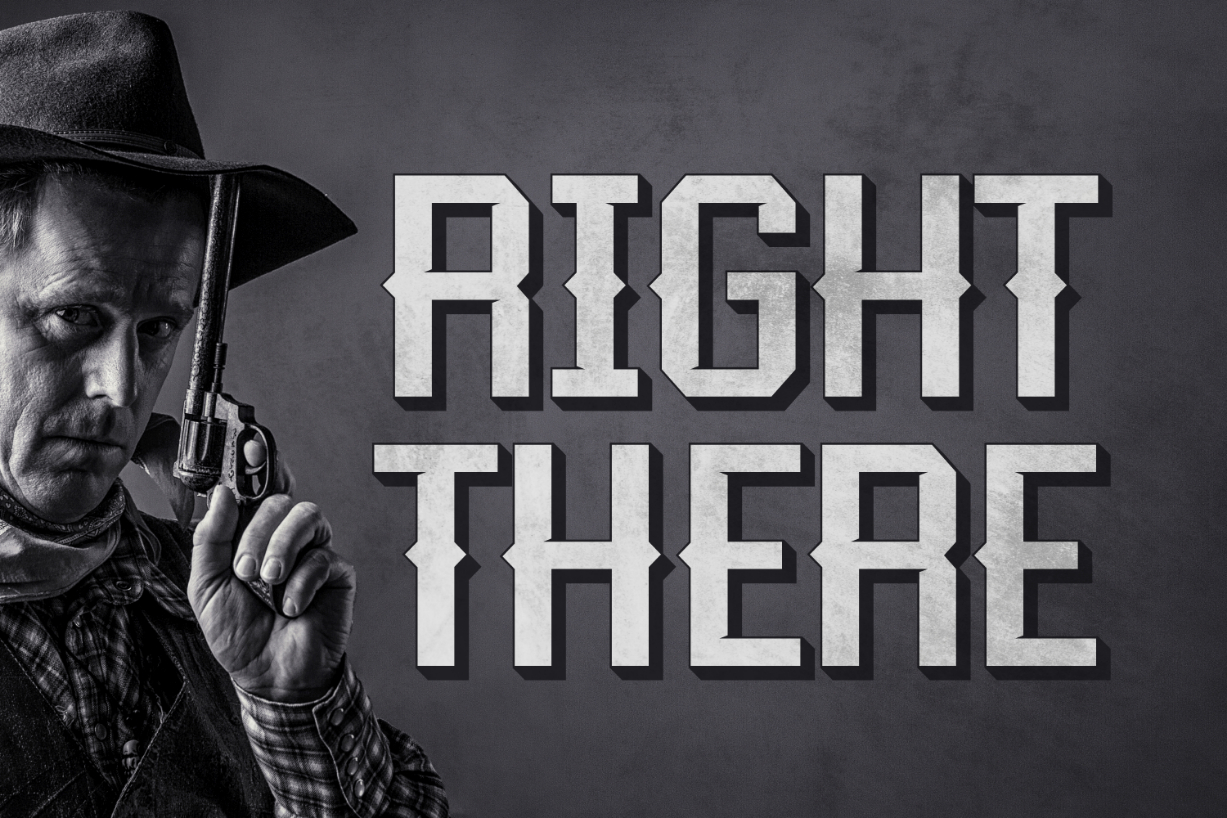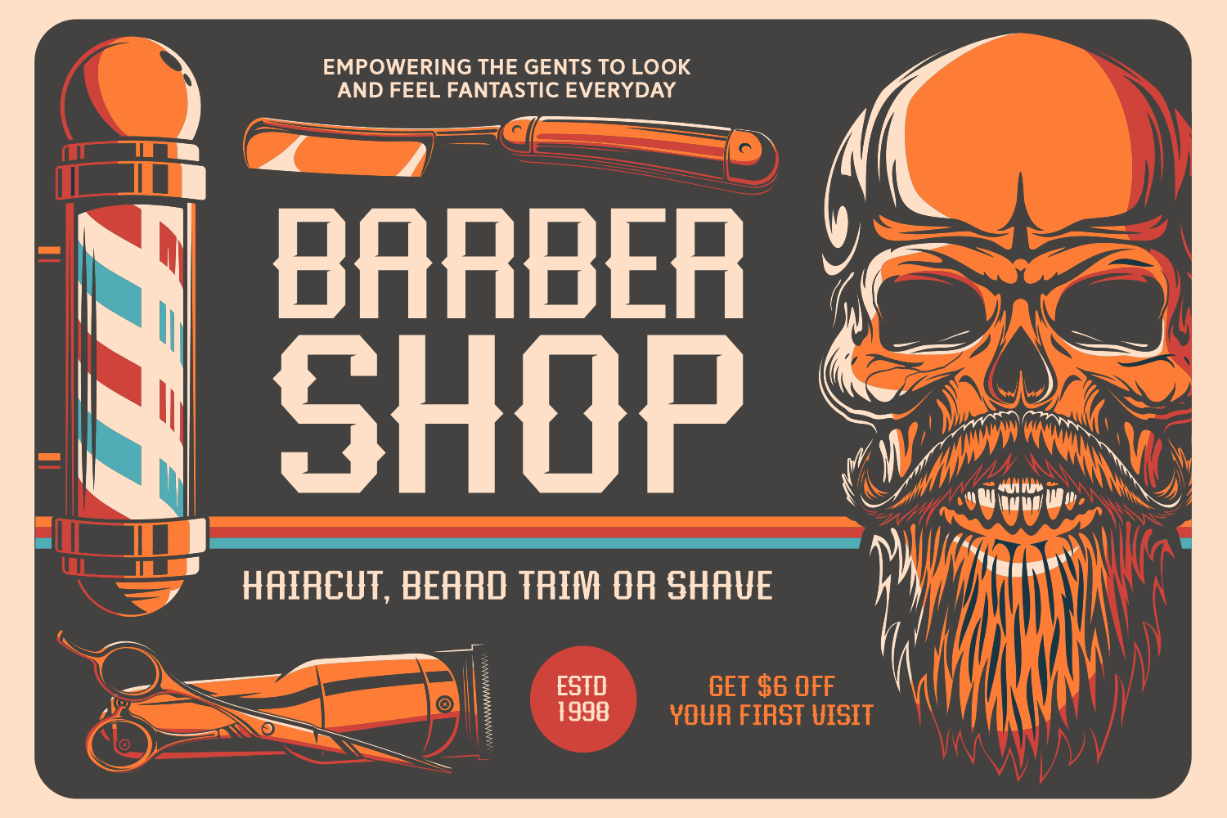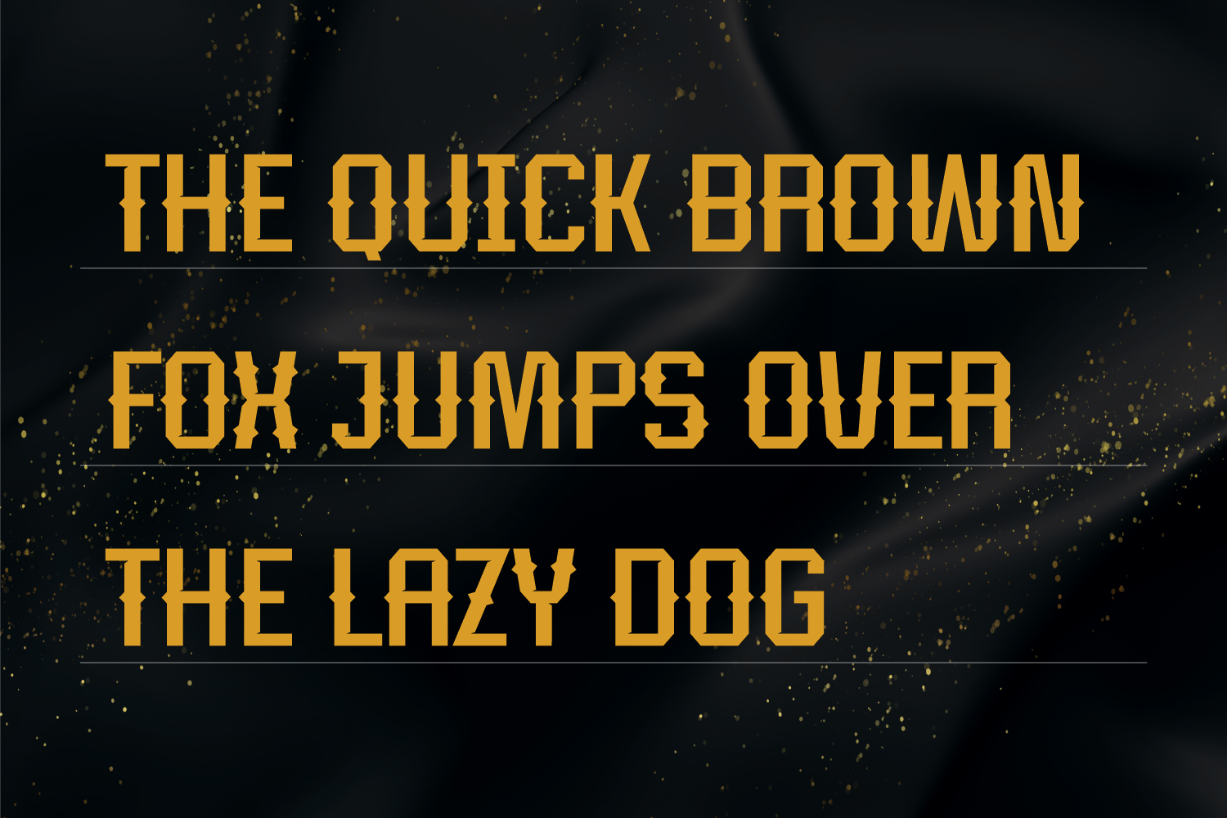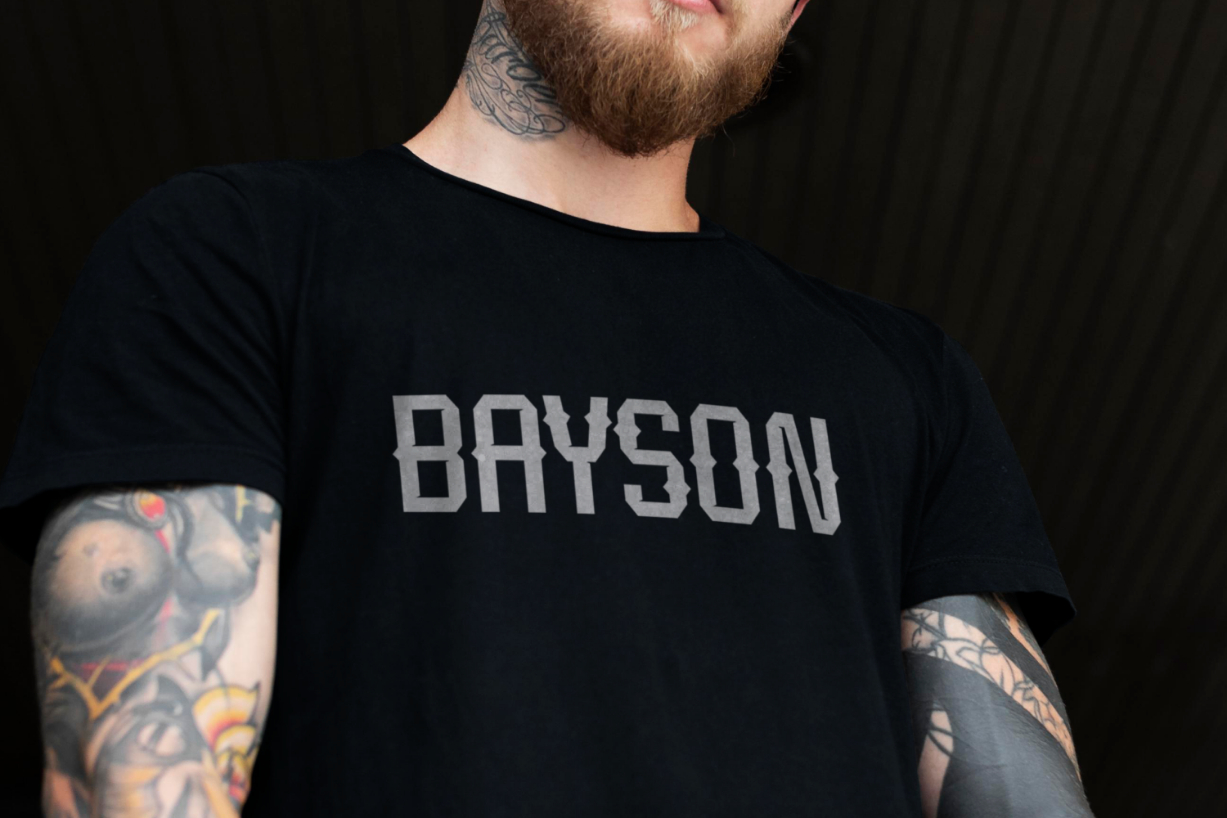
Right There Font
About Right There Font
Right There is a classy and versatile blackletter font. Add a modern look to your typography designs with this fabulous font that has the potential to elevate any creation! You can use it for headlines, titles, book covers, advertisements, branding projects, t-shirts, signage, and more.